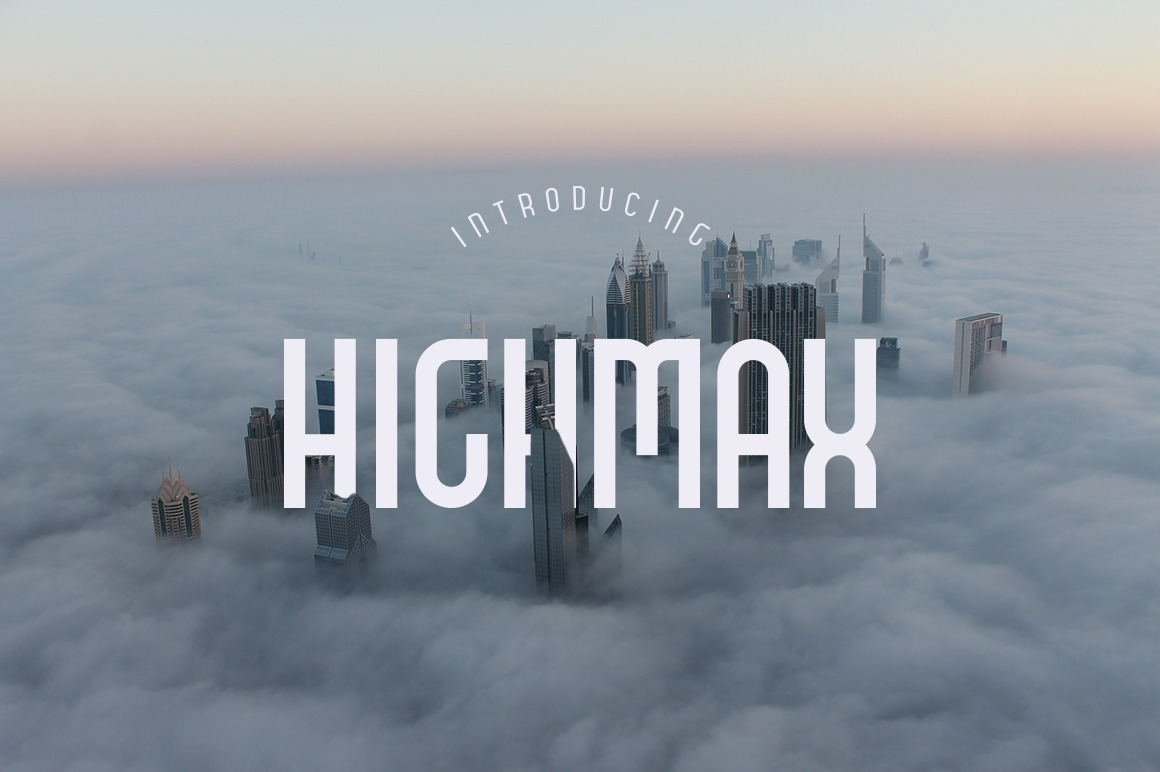
HIGHMAX Typefamily
HIGHMAX is extra-height display typeface from orphan font family.This typeface is perfect for Titles,Poster and other typography experiments.
With BOLD,LIGHT and OUTLINE Styles.
HIGHMAX Features :
BOLD,LIGHT and OUTLINE Uppercase Numerals & Punctuation